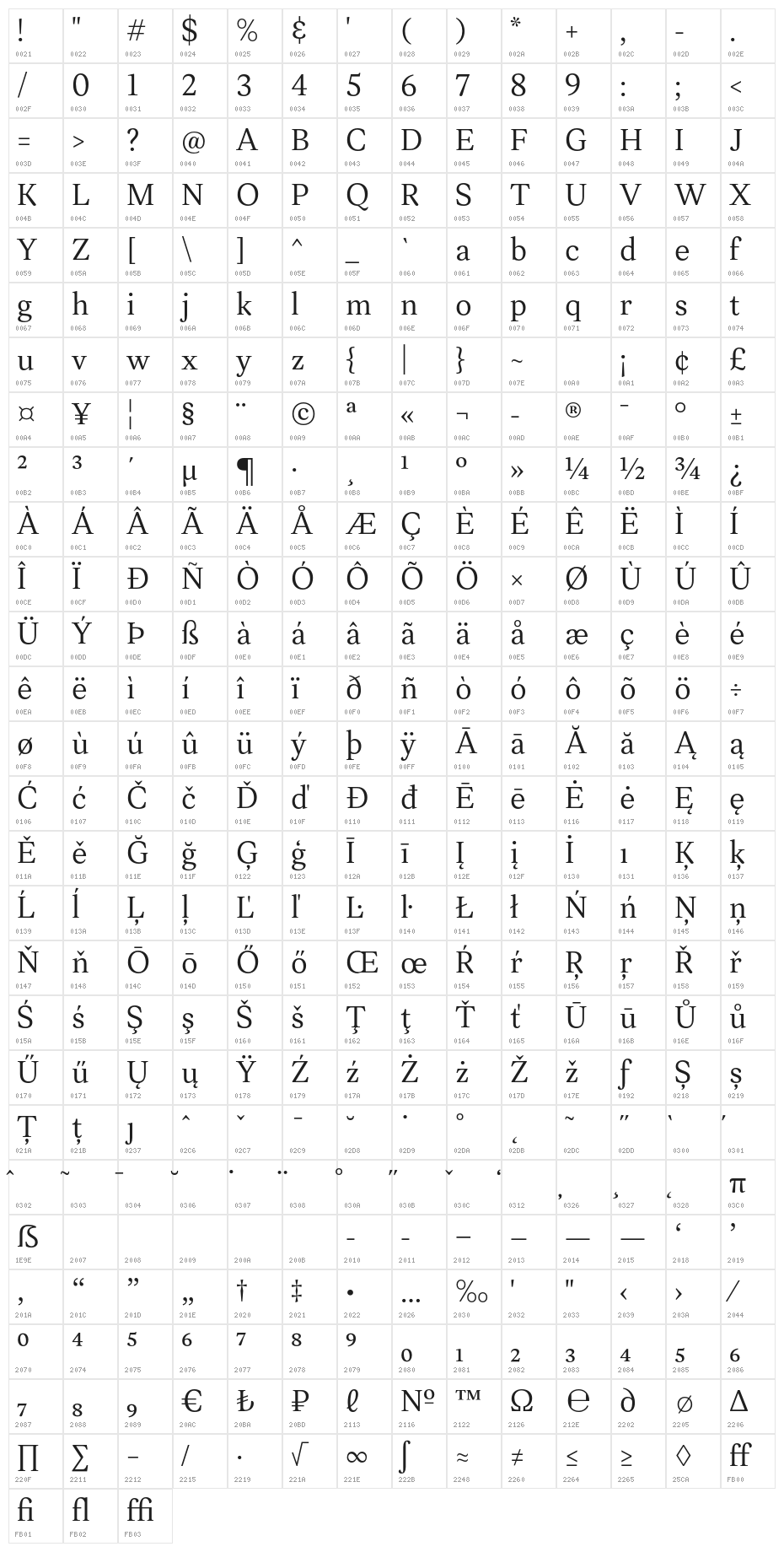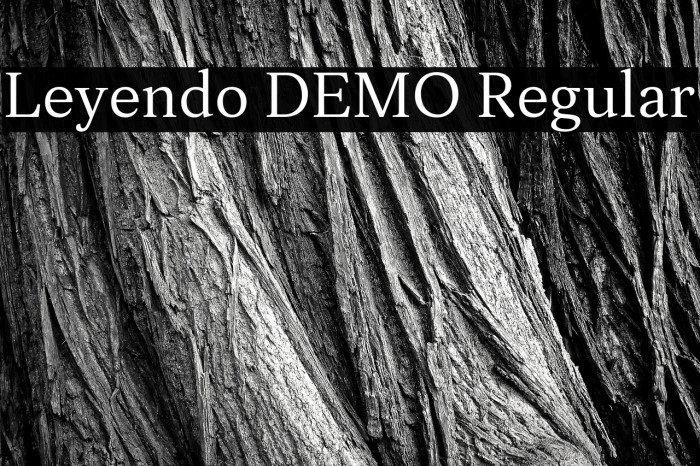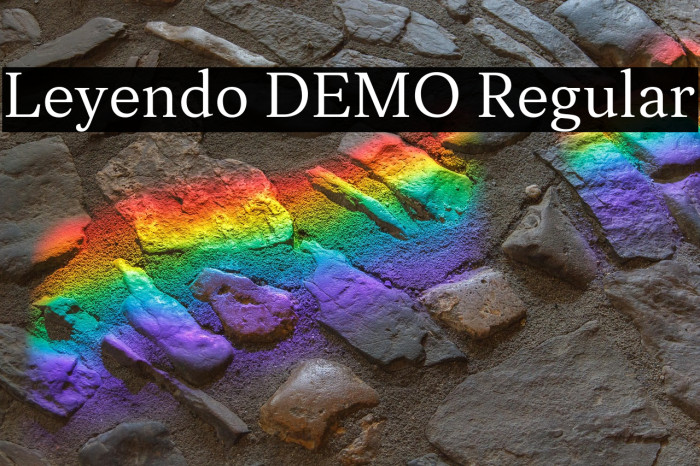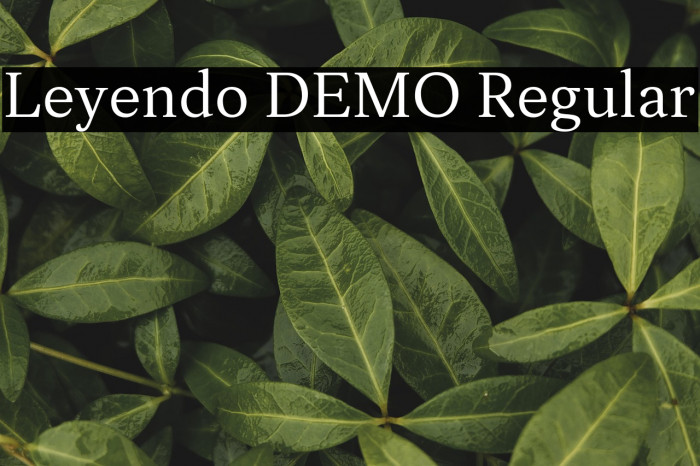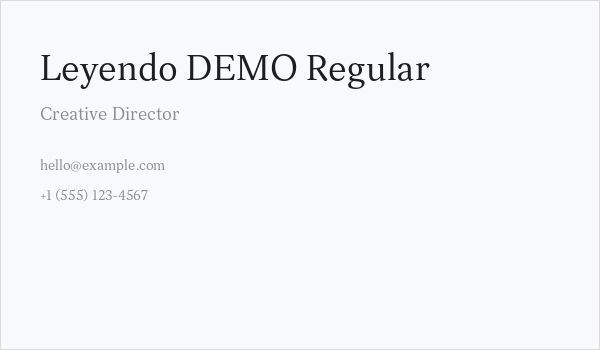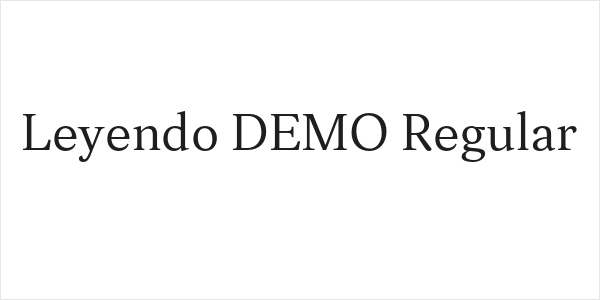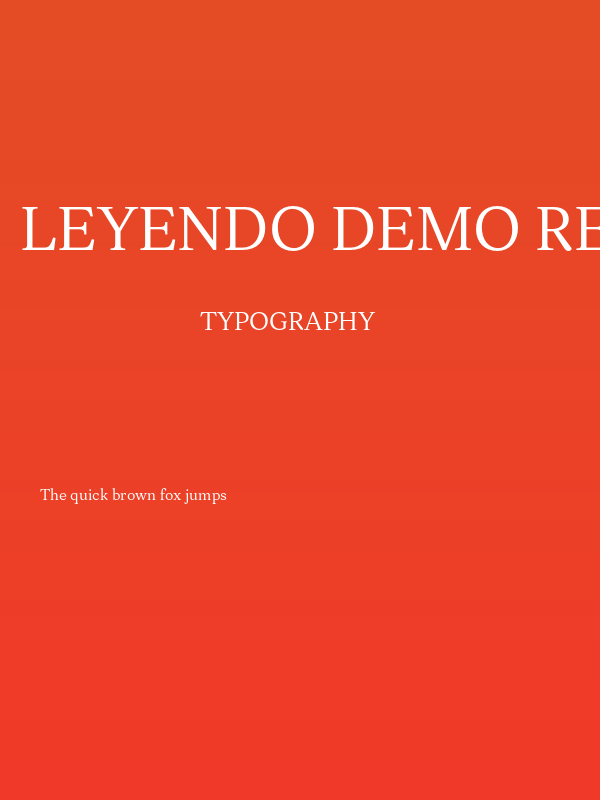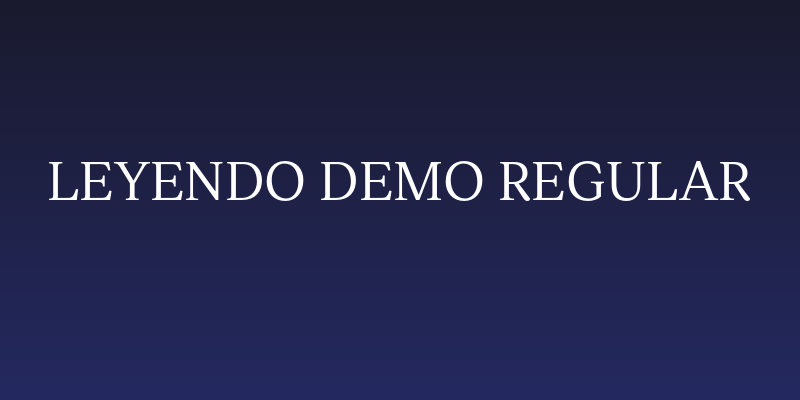
Leyendo DEMO Regular Font
Leyendo DEMO Regular Description
This font exhibits a classic serif style with a modern twist, featuring clean lines and balanced proportions. The uppercase letters are bold and authoritative, while the lowercase letters maintain a harmonious flow. The numerals are clear and distinct, ensuring readability. Special characters are elegantly integrated, adding to the font's versatility. The overall design is sophisticated, making it suitable for a wide range of applications. Its timeless appeal is enhanced by the subtle contrast in stroke thickness, which adds depth without compromising clarity.